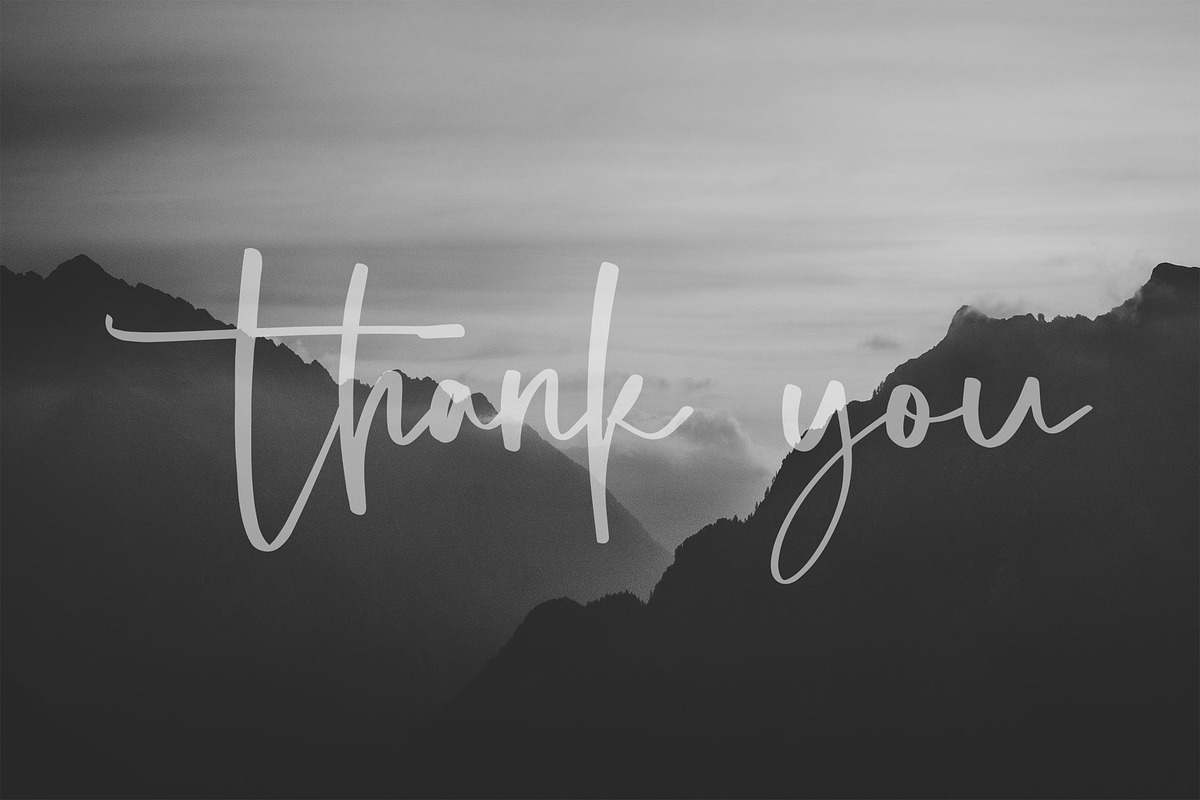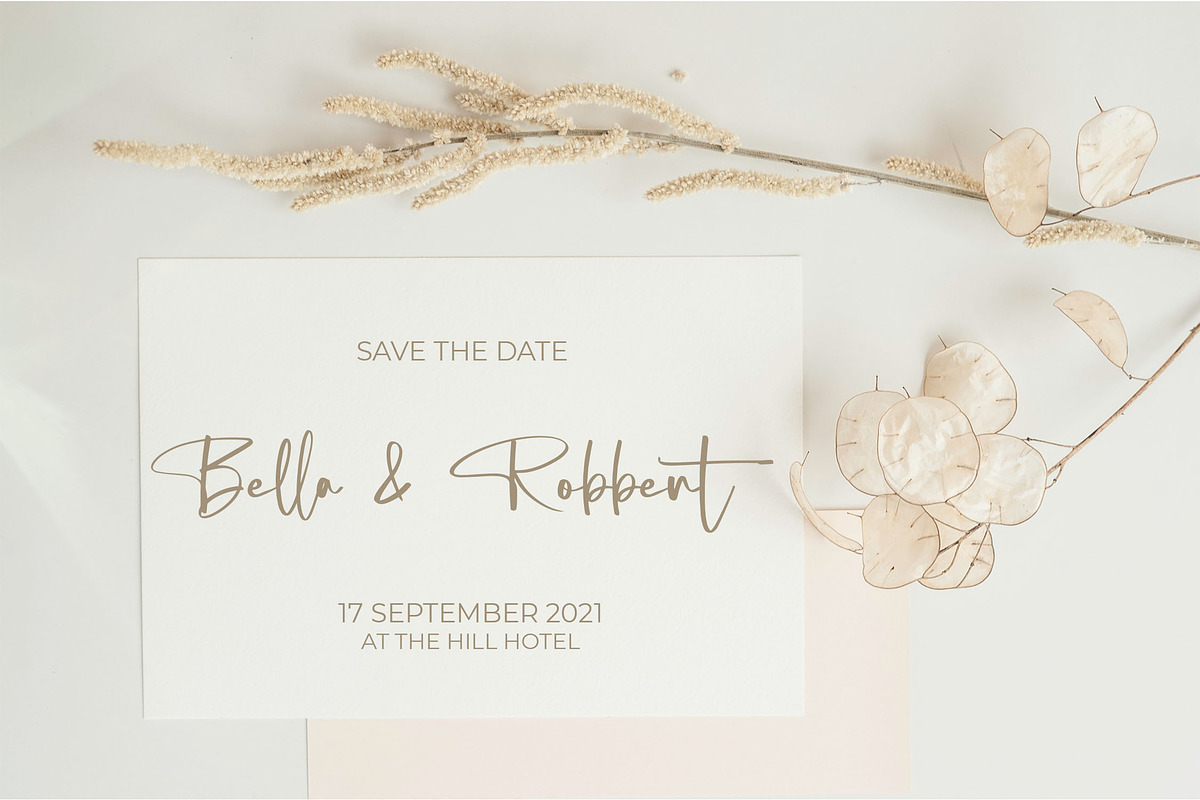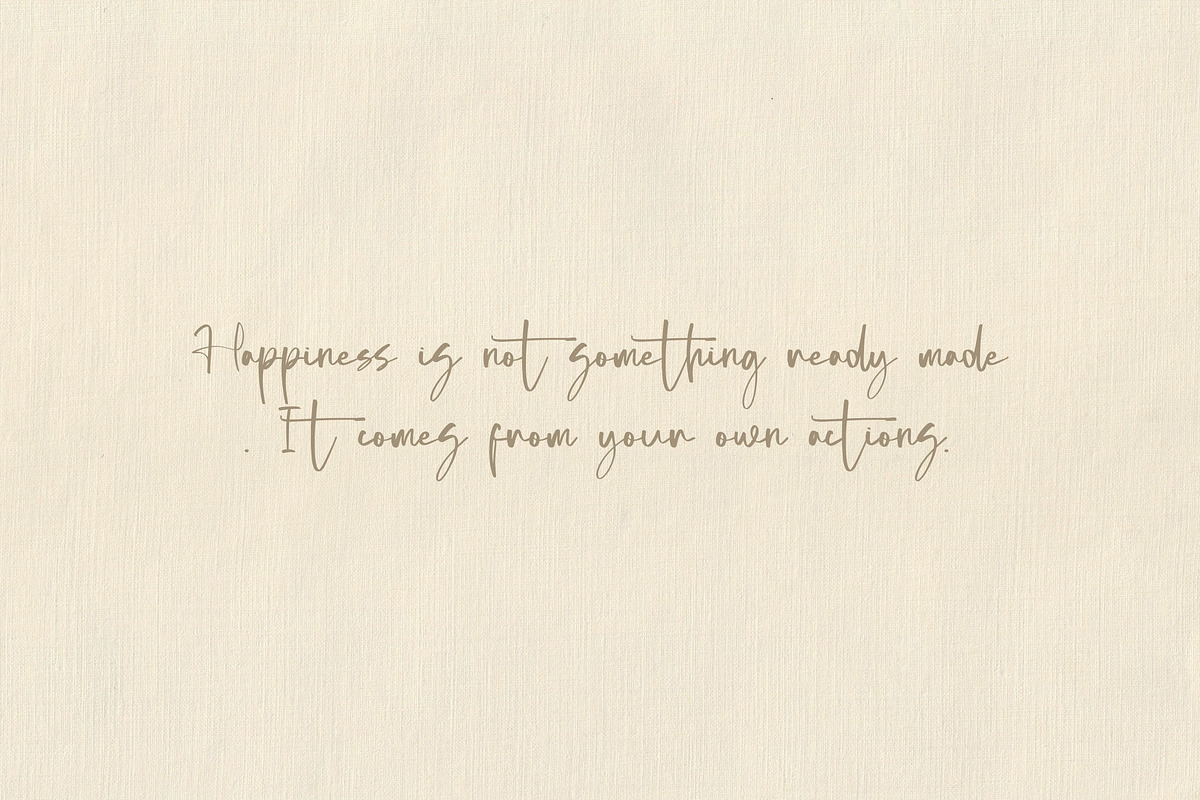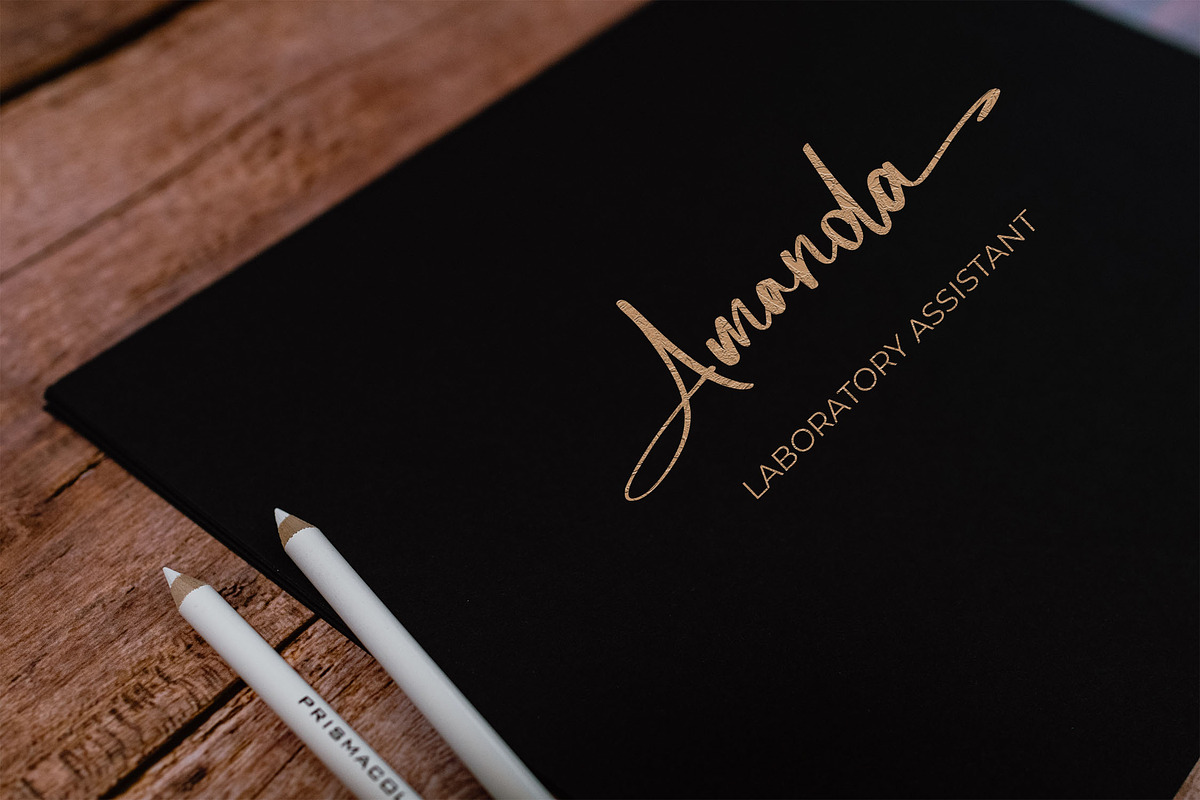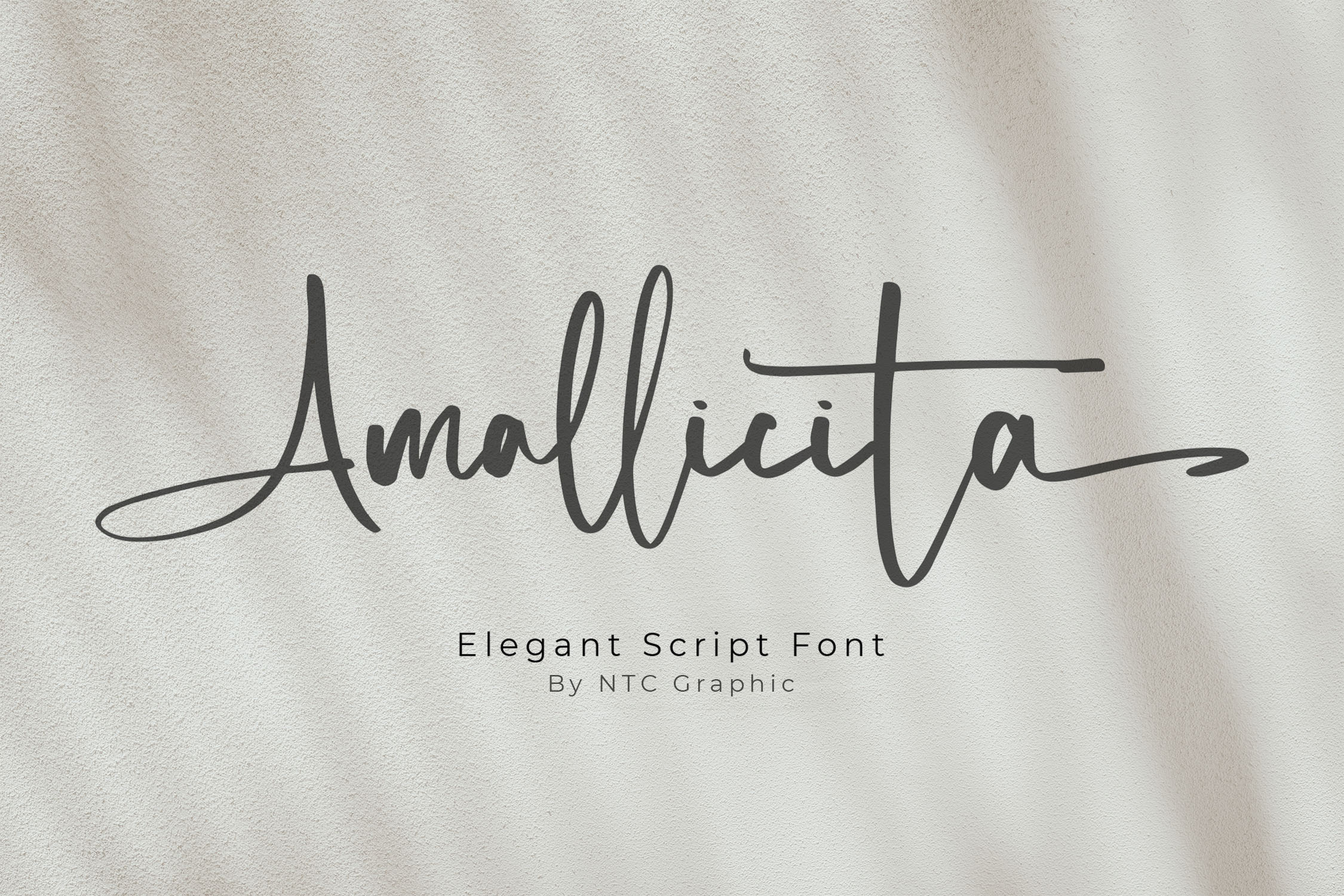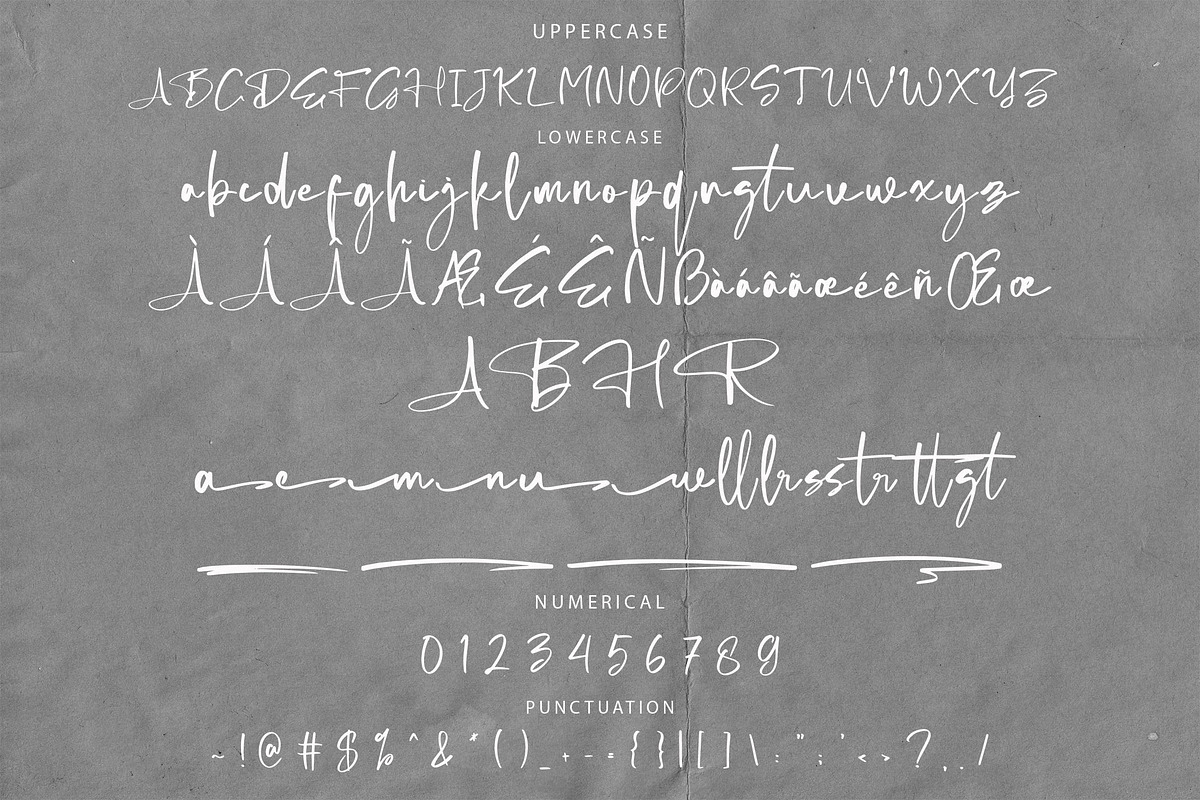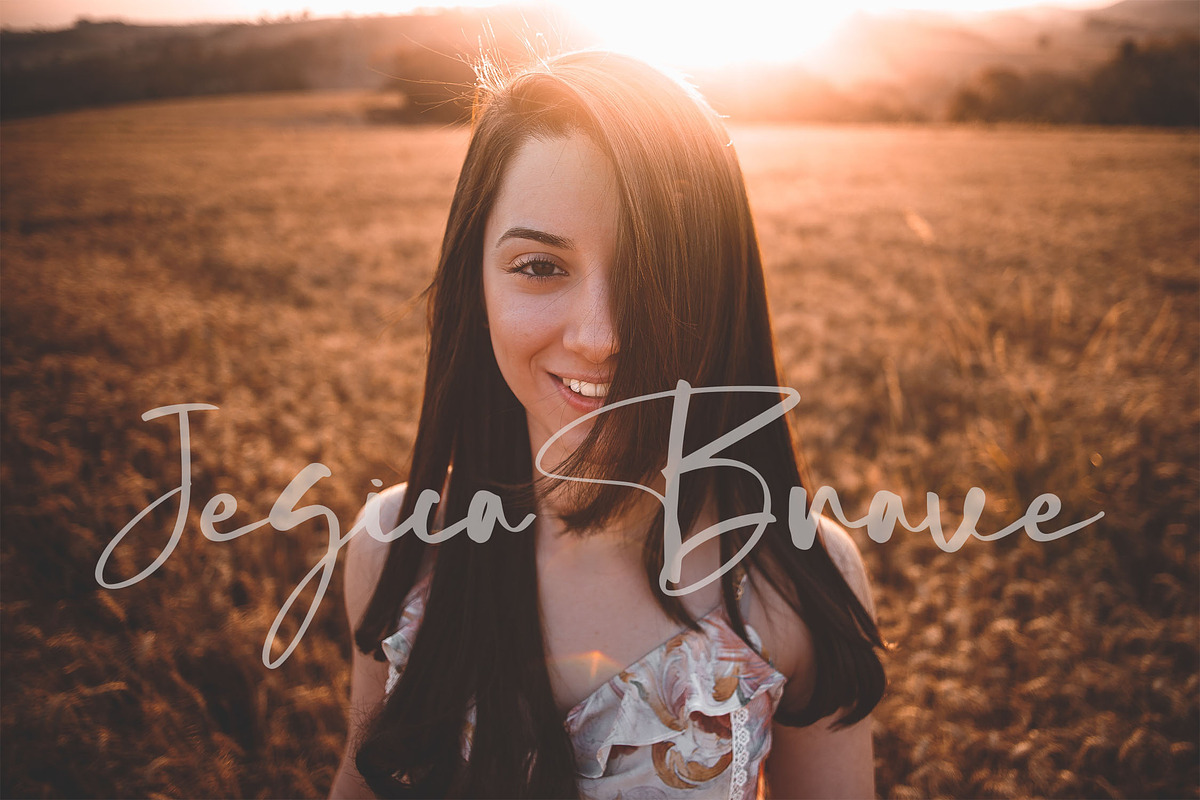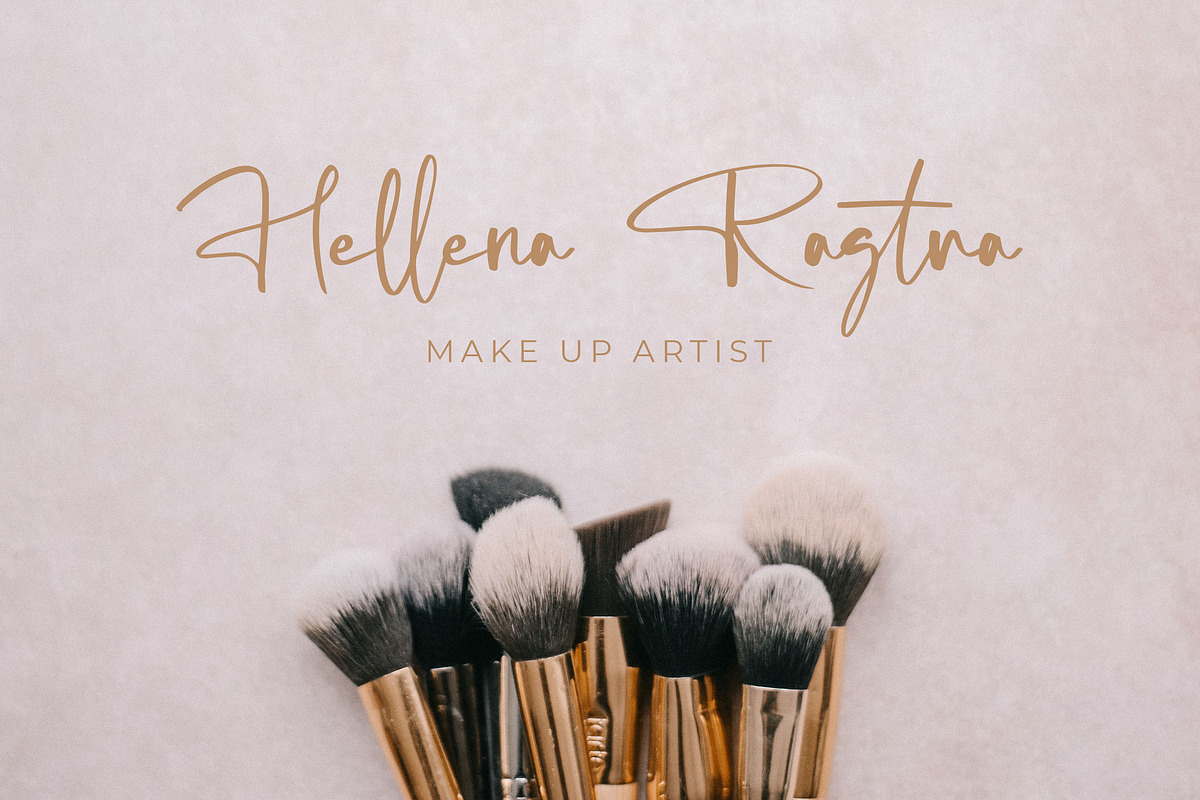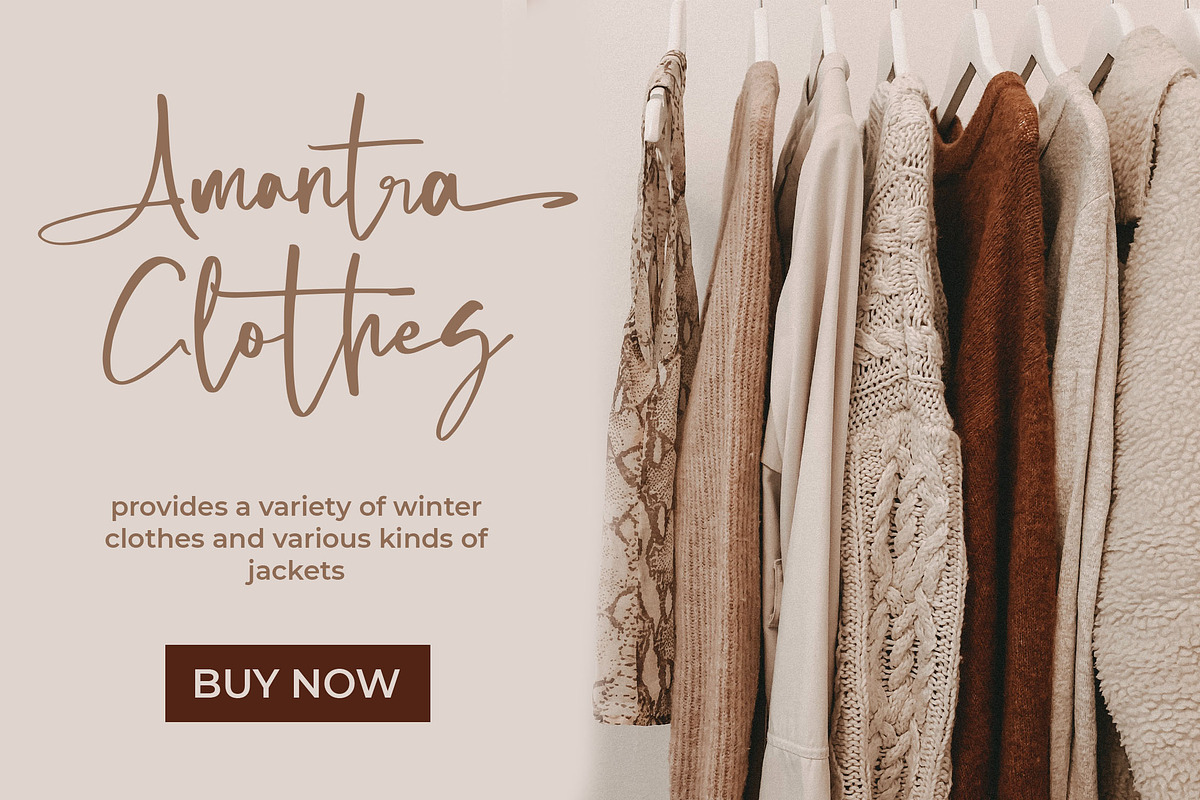
Amallicita - Elegant Script Font
Amallicita is a beautiful script font with an elegant and feminine style. Is a font style that is made with scratches and curvature shapes font characters are very beautiful. Can be applied to support the graphic appearance of the product to be more attractive and unique. This font is suitable for making previews and covers, wedding invitations, logo designs, shirt designs, and other feminine graphic needs.
- Stylistic Alternate